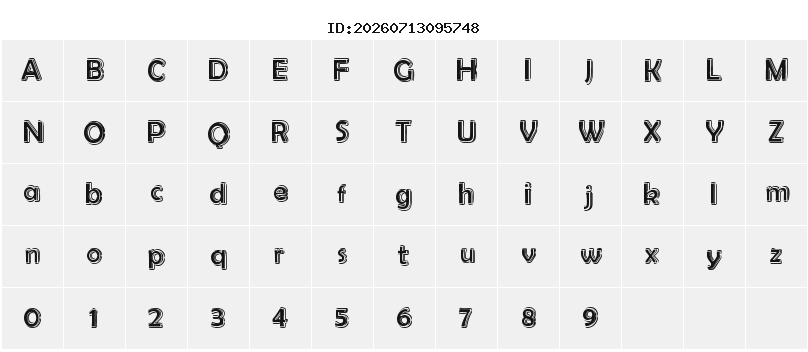
Rasanskool Preview
• Font Name: Rasanskool
• Designer: Ahmad Agie Faishal
• Description: Good and suitable for the big size (cool for poster, banner, shirt design)
About Rasanskool.ttf
Rasanskool.ttf is a modern, elegant sans-serif font designed for ultimate readability and visual harmony. Perfect for branding, headlines, web design, and print materials.